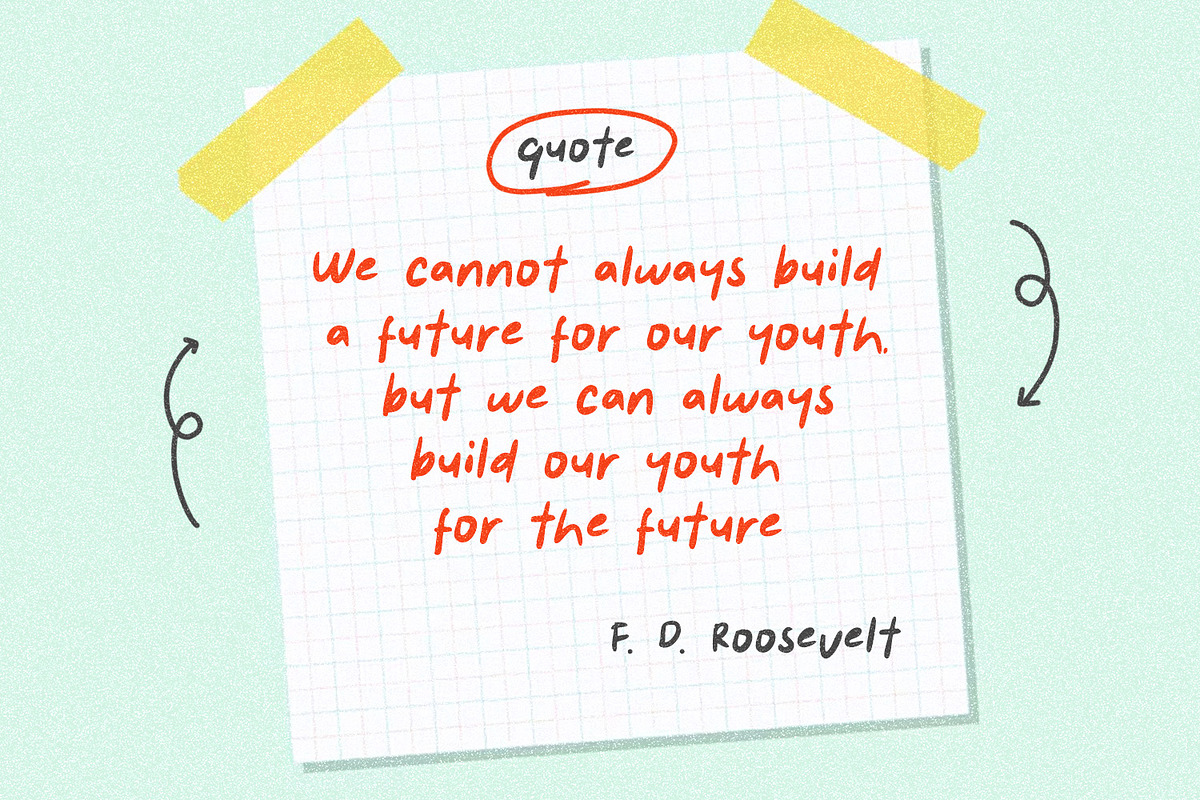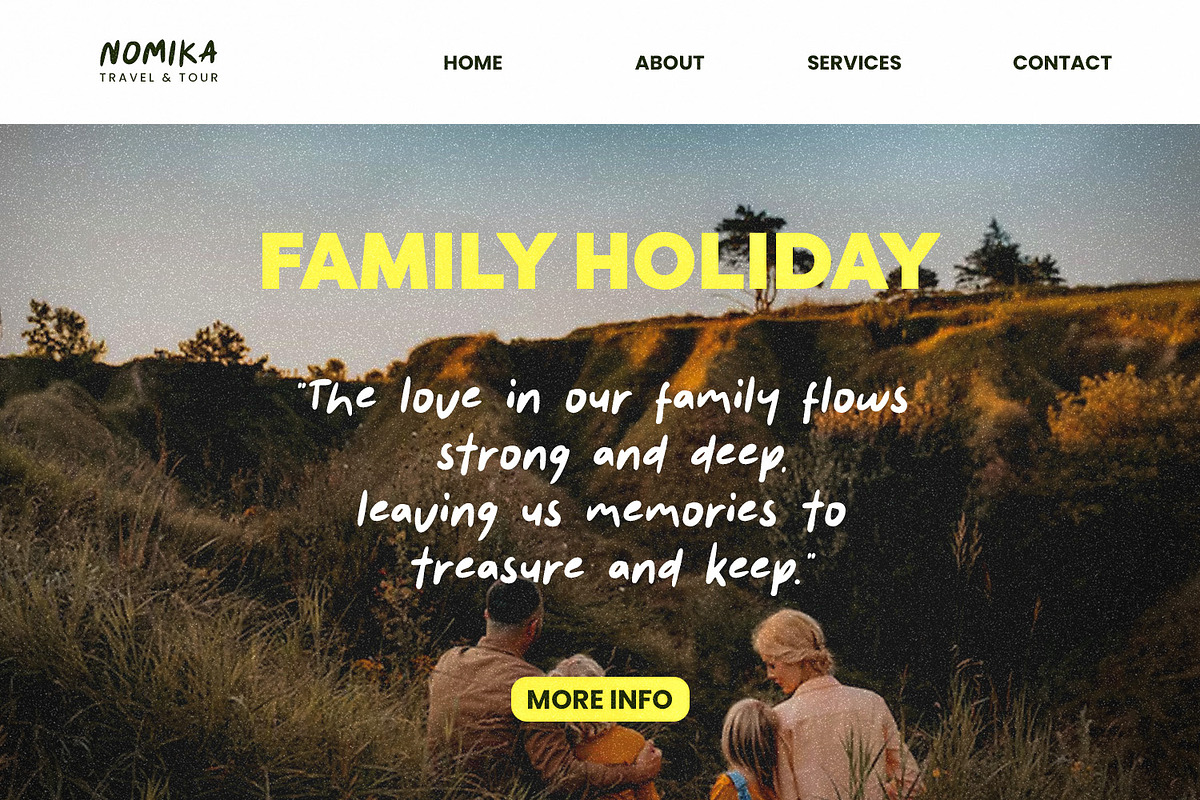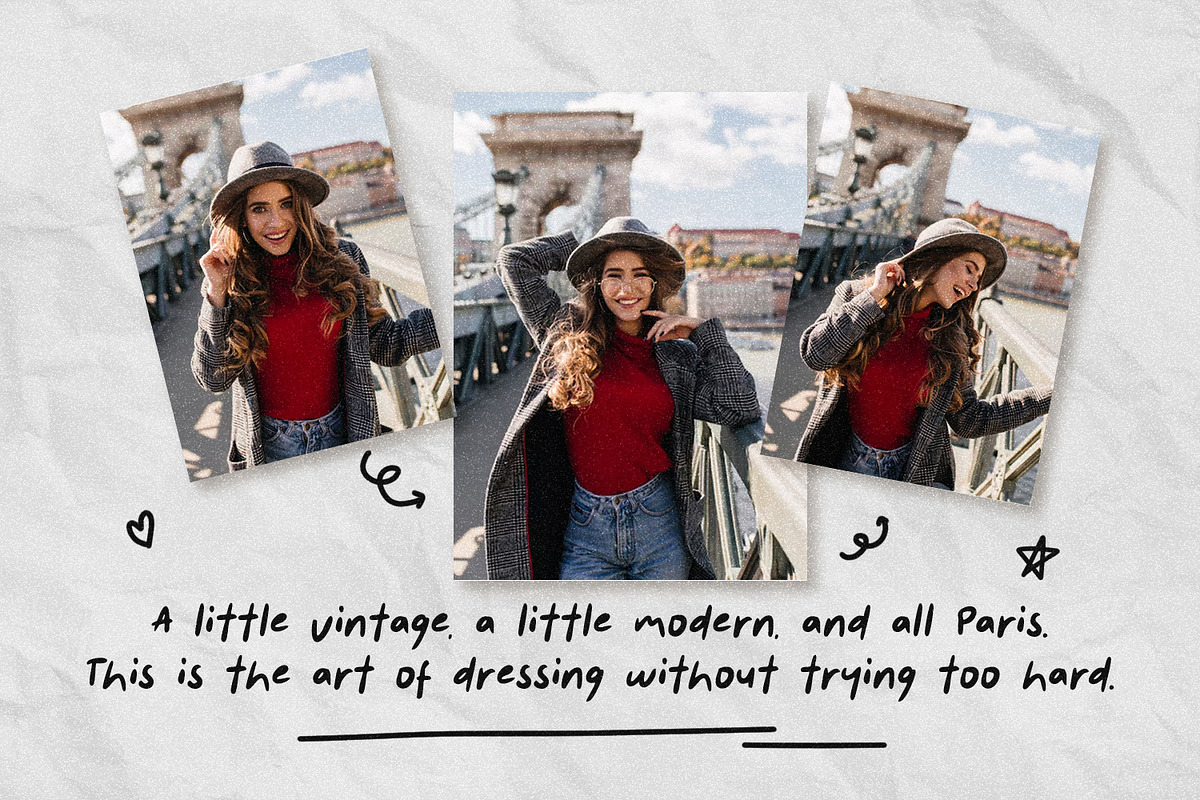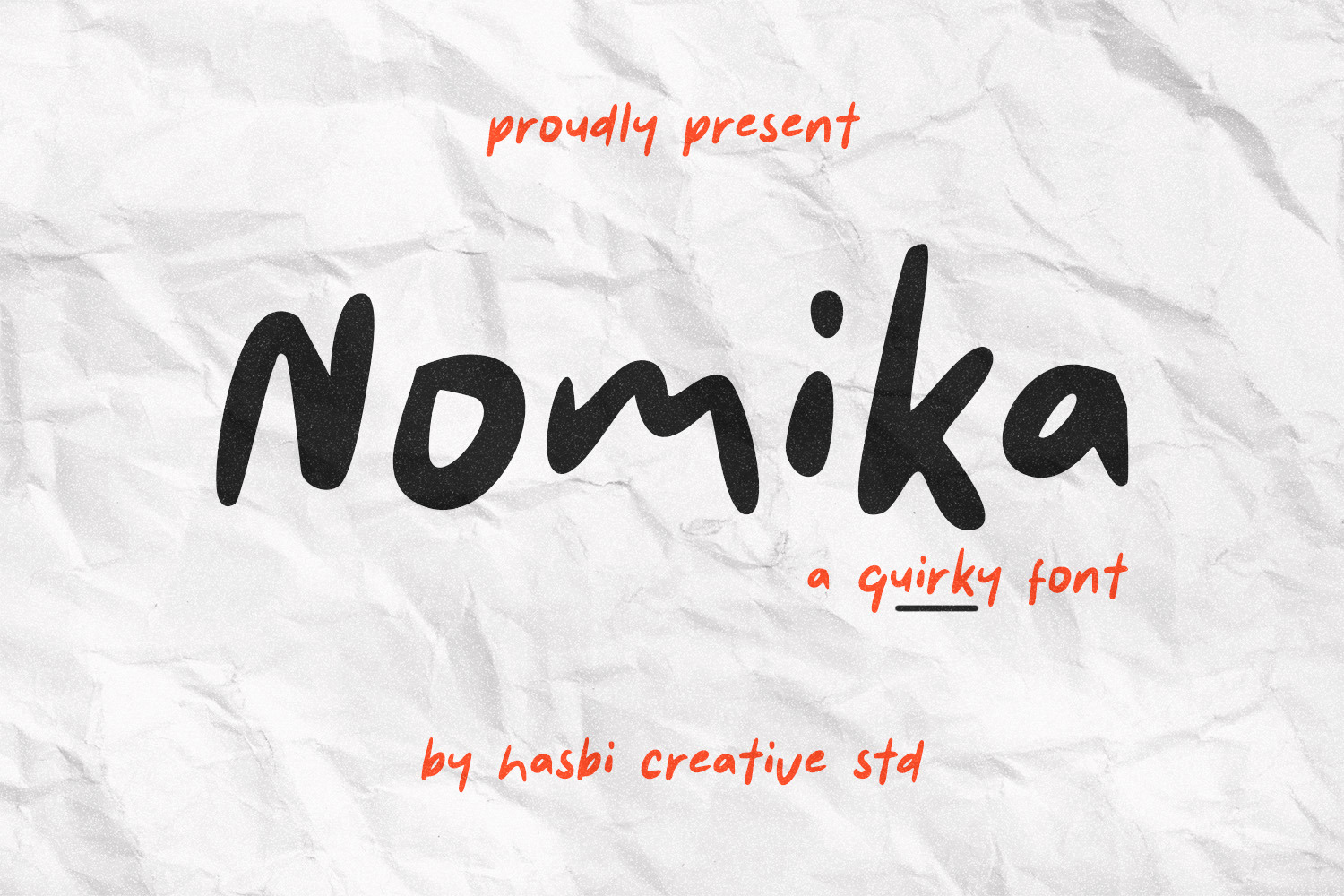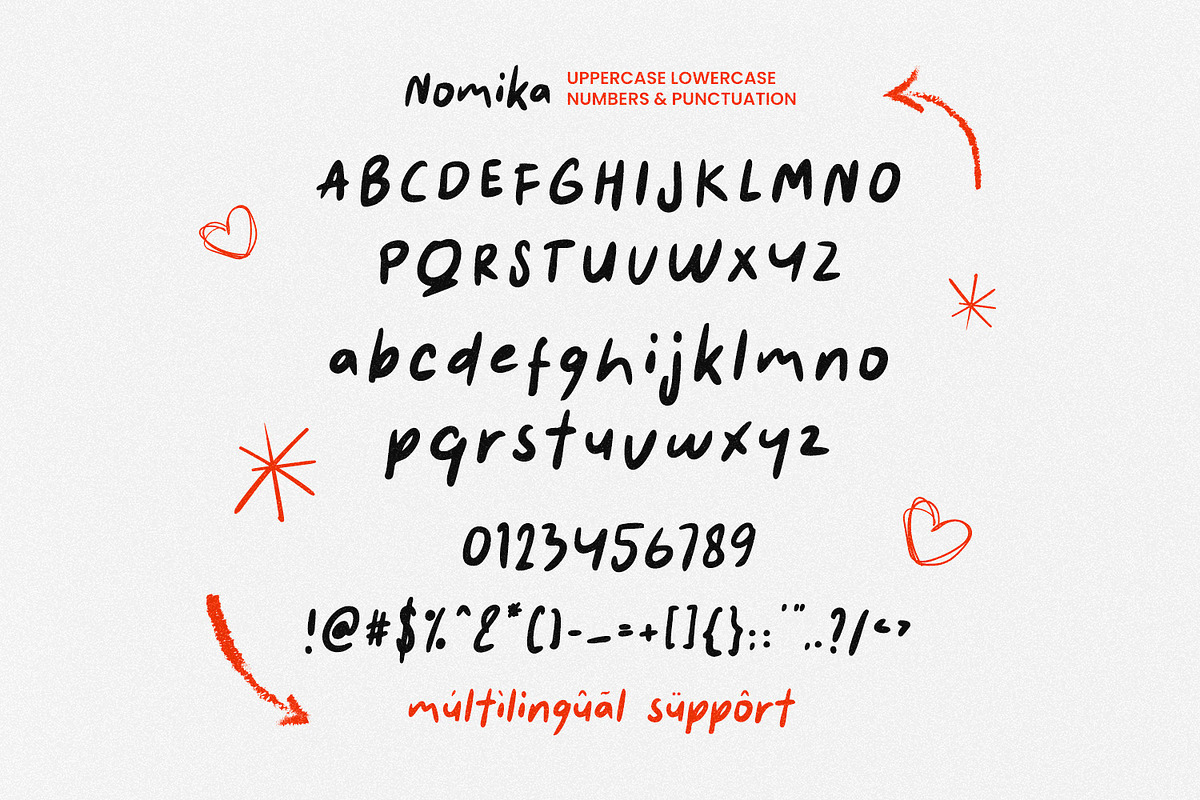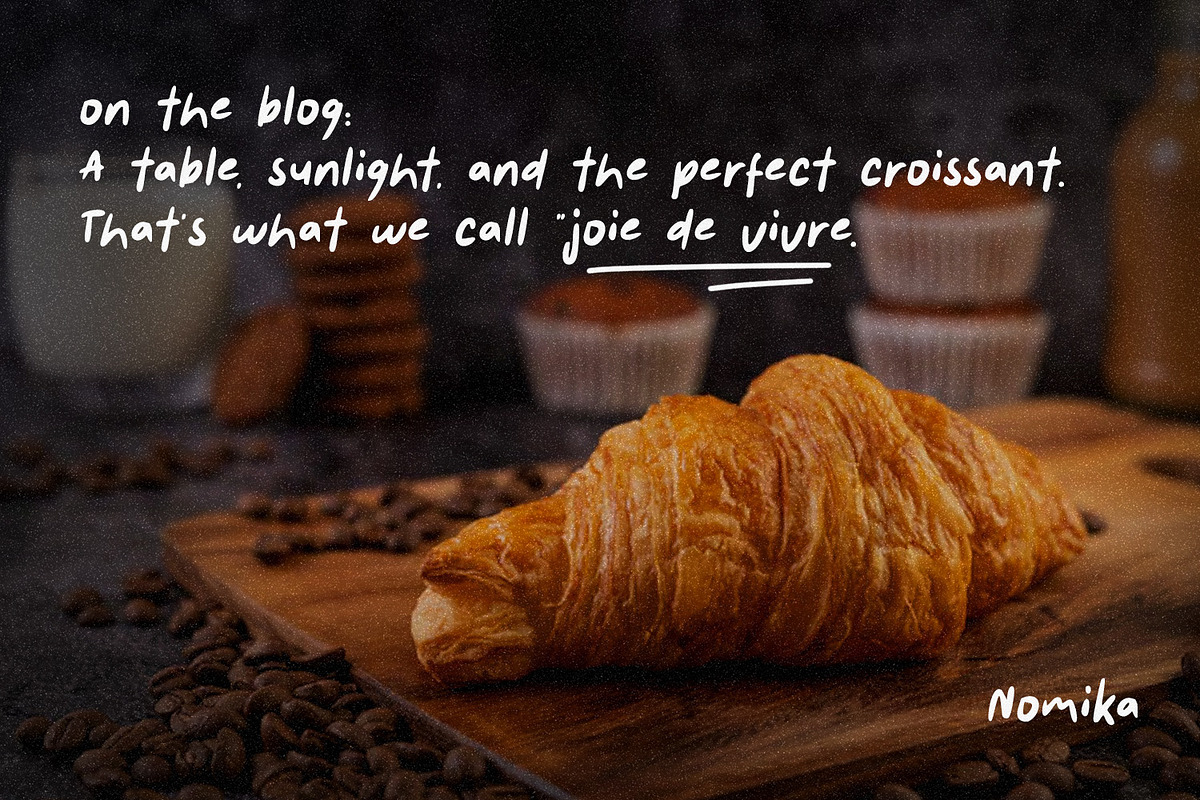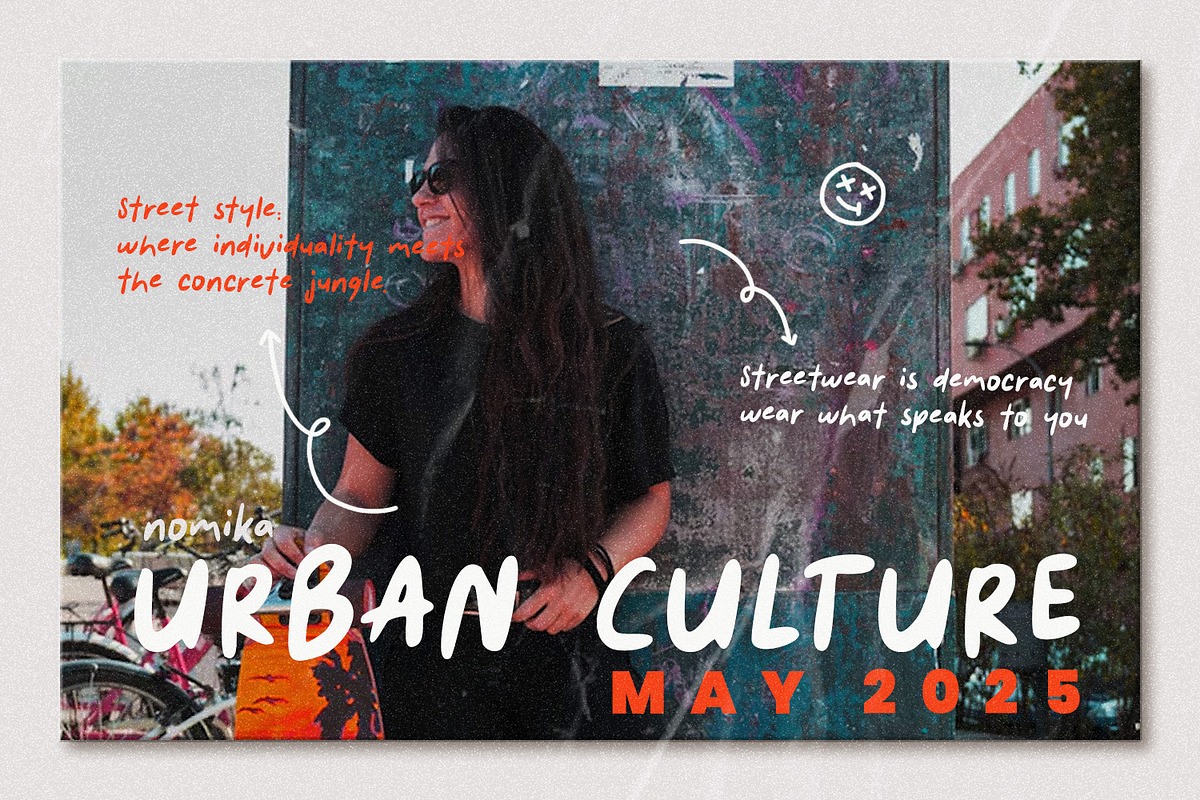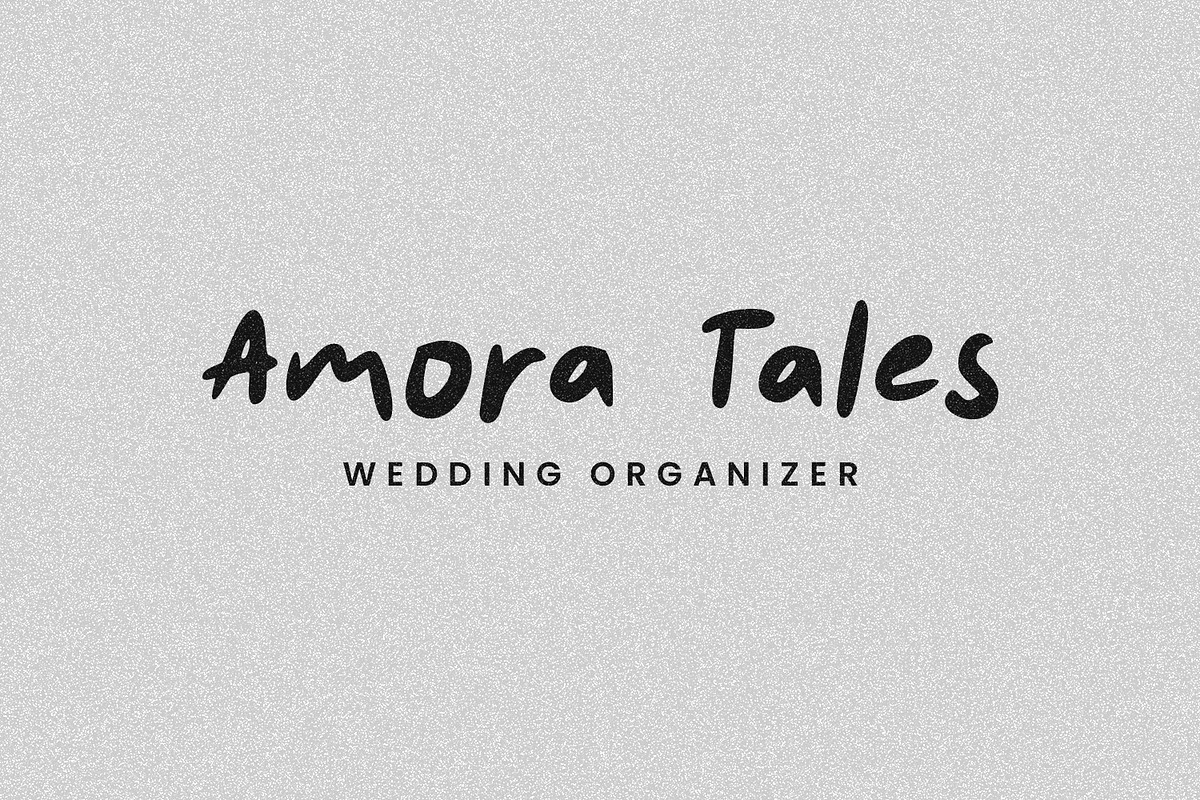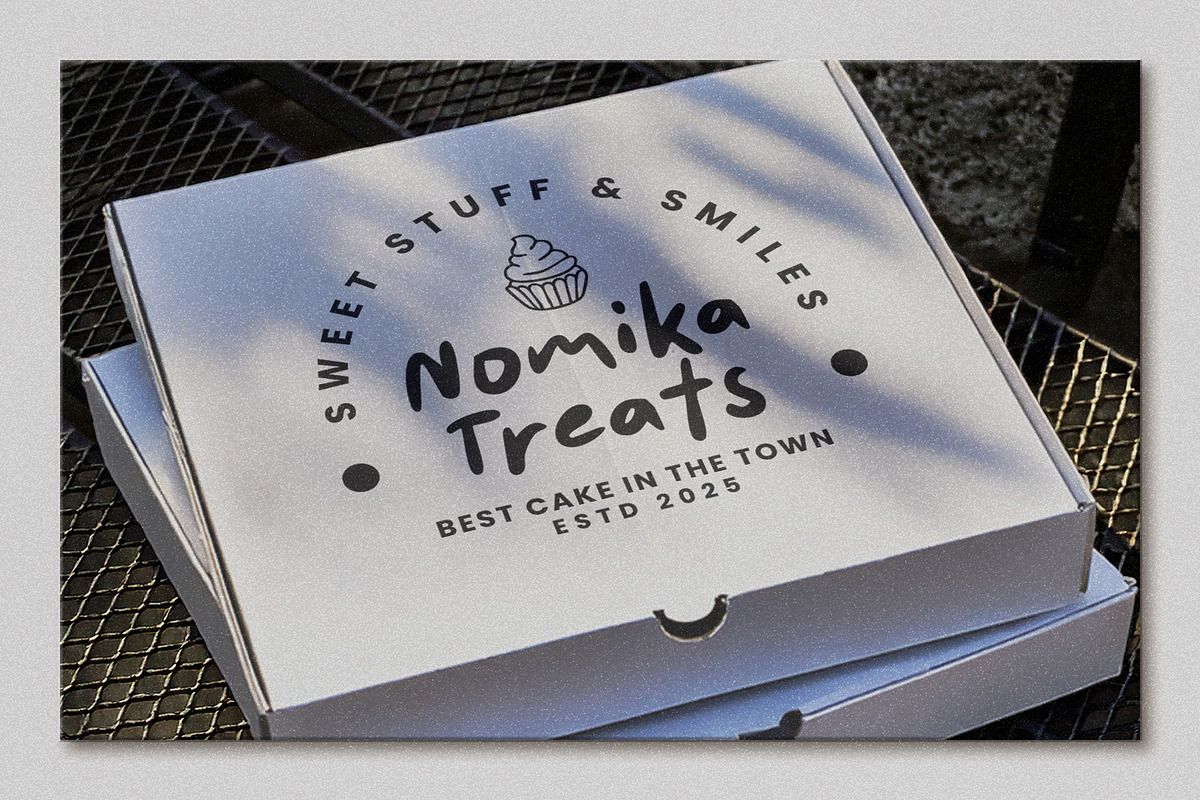
Nomika - Quirky Font
Say hi to Nomika – a casual handwritten font that’s friendly, fun, and full of personality!
With a bold marker feel and organic stroke rhythm, Nomika is made for:
- Quotes & social posts
- Journals & planners
- Merch & packaging
- Branding for youth / lifestyle products
- Numerals & punctuation
- Smooth curves & natural rhythm
- Works great in both short and long texts!
Nomika is playful but not childish – a perfect choice for when you want to add charm without losing clarity.